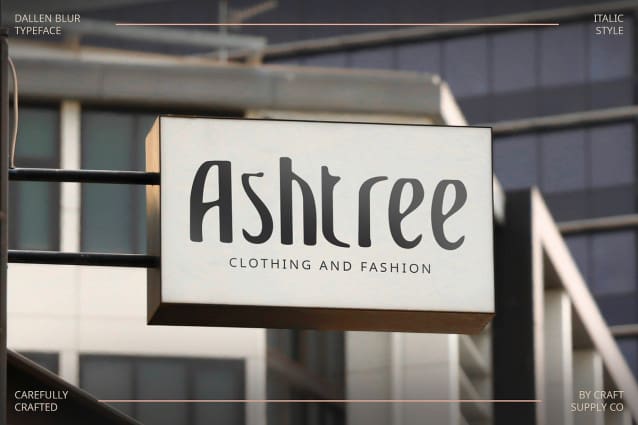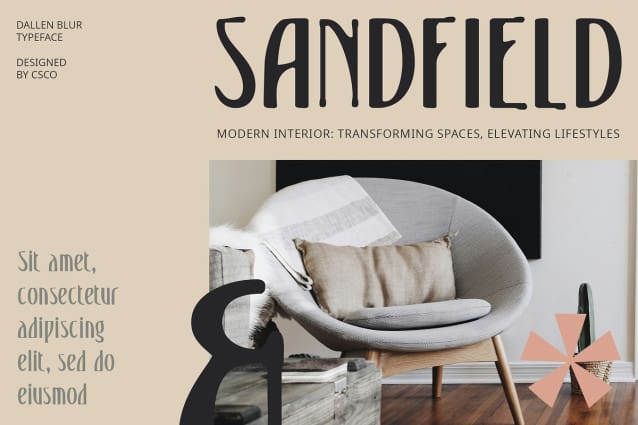
Dallen Blur Font
Dallen Blur Font is a serif font with an Art Deco style and a blur effect. Suitable for designs aiming to convey elegance, classicism, and artistry, this font adds a sophisticated and artistic look to your projects.
Ideal for Sophisticated Designs Perfect for headlines, banners, and other display purposes, Dallen Blur ensures your message is both seen and remembered. Its serif font style, combined with an Art Deco influence and blur effect, makes it a refined choice for designs seeking to create an elegant and classic impression.
Versatile and Timeless Despite its classic appearance, Dallen Blur remains versatile and timeless. Its serif font format makes it suitable for a wide range of projects, from branding to digital designs, where a font that exudes elegance and artistry is essential for making a statement.
Perfect for Adding a Touch of Art Deco Dallen Blur is ideal for projects requiring a font with an Art Deco touch. Whether you’re designing a poster, logo, or website, this font will undoubtedly add a distinct and memorable element to your designs.